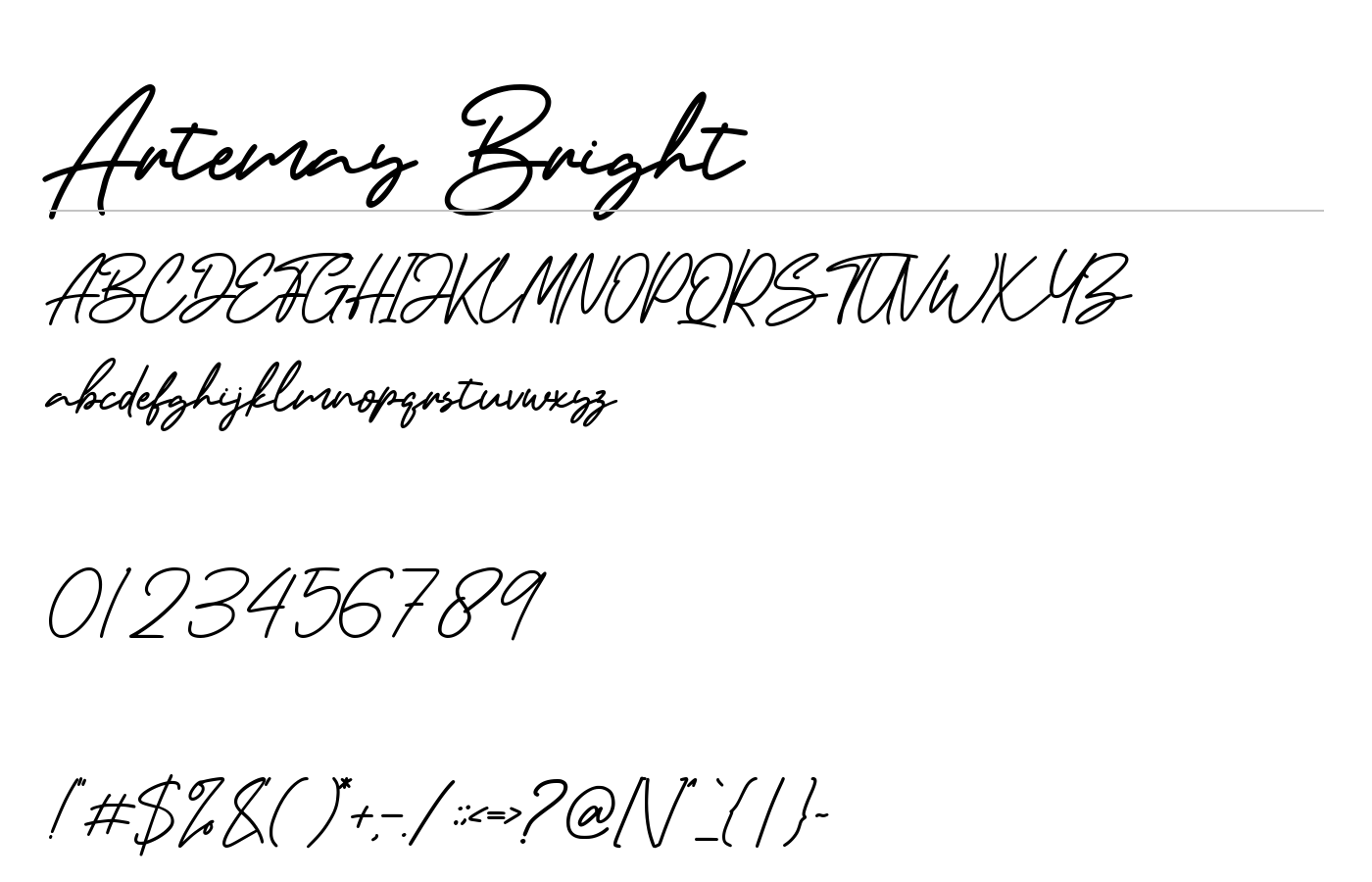
Artemay Bright is a sleek, modern script font with a light and elegant touch, featuring smooth, flowing lines that mimic natural handwriting. Its slender strokes and slightly slanted letterforms give it a stylish, personal feel perfect for creative branding, invitations, and editorial headlines where a refined yet approachable vibe is desired. This font works beautifully for projects that want to convey warmth and sophistication with a contemporary flair.
Artemay Bright Font
About Artemay Bright Font